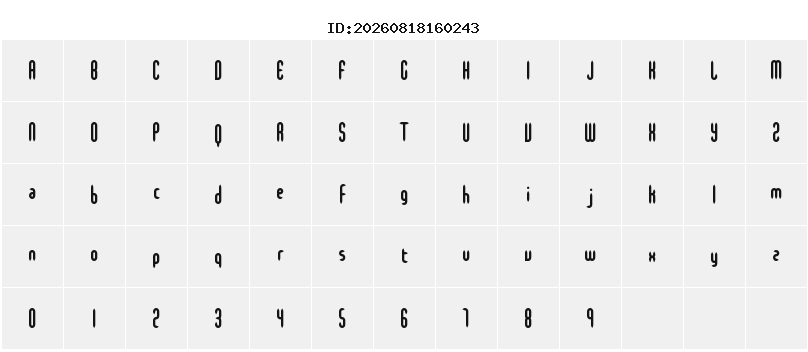
• Font Name: Slender Mini BRK
• Full Font Name: Slender Mini BRK
Slender Mini BRK.ttf is a modern, elegant sans-serif font designed for ultimate readability and visual harmony. Perfect for branding, headlines, web design, and print materials.